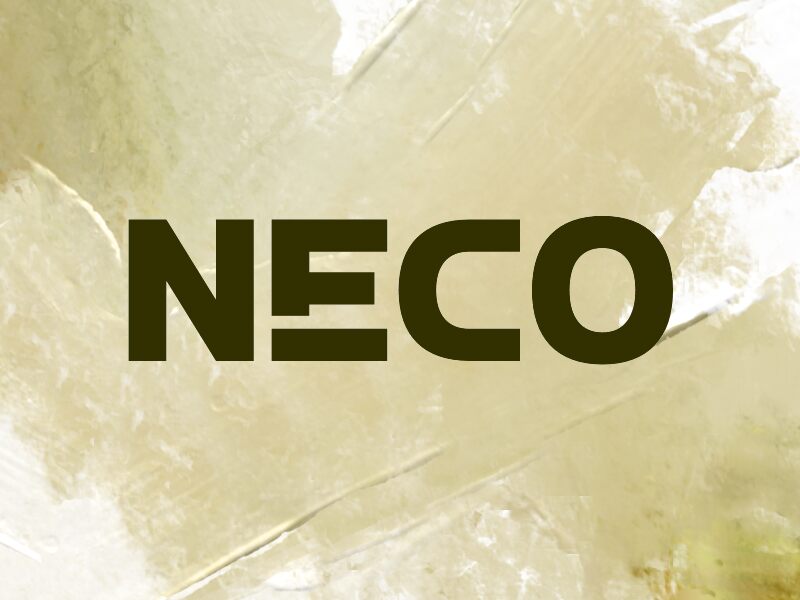
n Neco font by wepfont.com is a free techno-inspired typeface that features a distinct, clean aesthetic. The compact and geometric form of this font gives it a strong presence, ideal for contemporary applications in tech branding and minimalist design. Blending industrial and modernist influences, n Neco strikes the perfect balance between futuristic and classic styles.
The font’s modern and versatile look makes it fit for use in logos, titles, headlines, movie posters, short text, and more. It can be used for packaging, promotional materials, magazines, books, product designs, occasional digital artworks, and web design projects.
Naco is a stylish and modern typeface designed for a variety of creative projects. With its sleek lines and contemporary feel, this free font adds elegance to any design. Perfect for branding, advertising, and digital media, Naco provides versatility and readability, making it an excellent choice for both headings and body text.